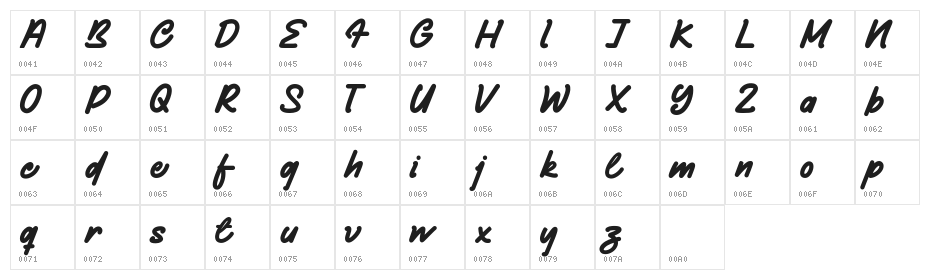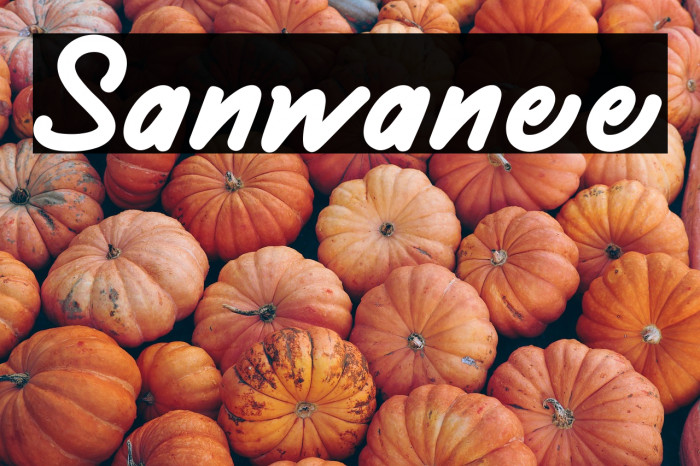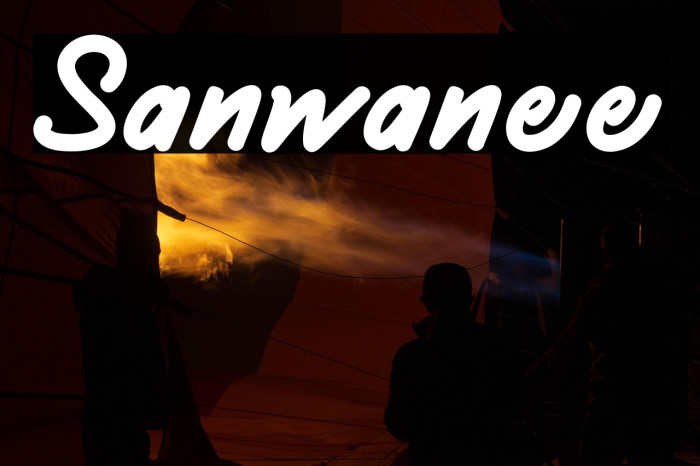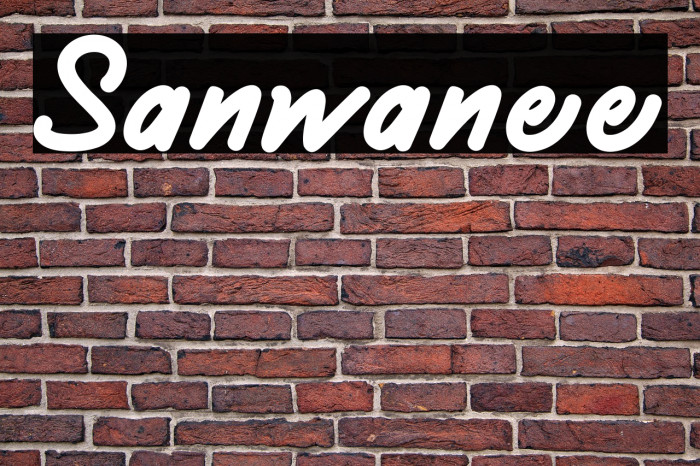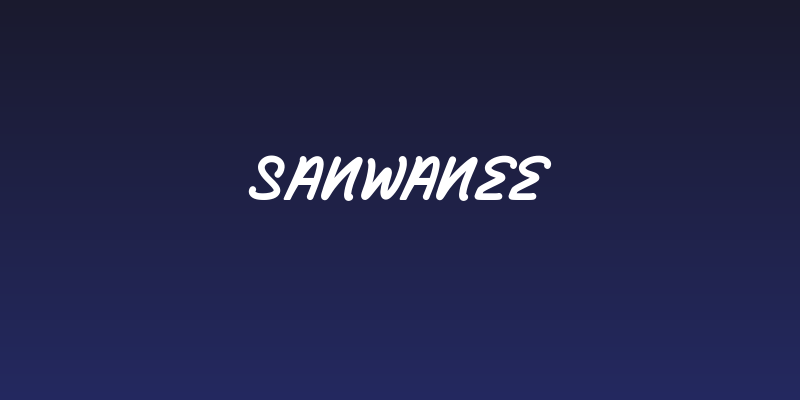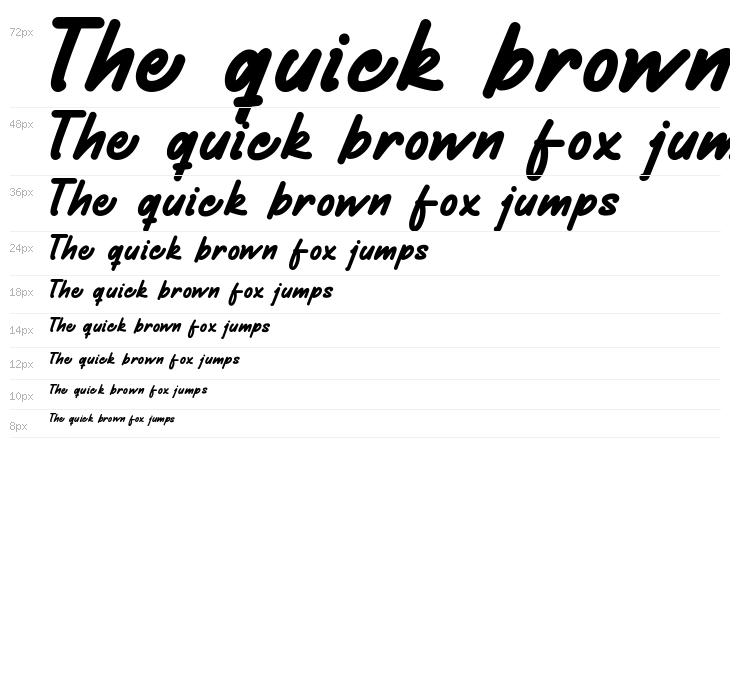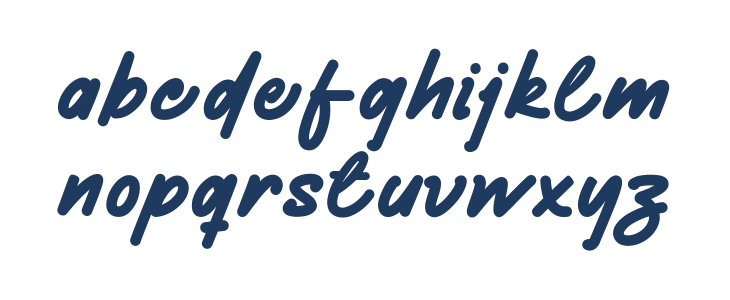
Sanwanee Font
Sanwanee Description
This font features a bold and flowing script style, characterized by its smooth, connected strokes that mimic the fluidity of handwriting. The letters are slightly slanted, enhancing the cursive feel, while maintaining a consistent thickness throughout, which gives it a uniform appearance. The uppercase letters are distinct and prominent, with elegant curves that add a touch of sophistication. The lowercase letters are equally well-crafted, with rounded forms that ensure readability. This font exudes a sense of elegance and dynamism, making it suitable for a variety of creative applications.
| Proposed Projects | Ideal for wedding invitations, greeting cards, branding projects, and elegant signage. |